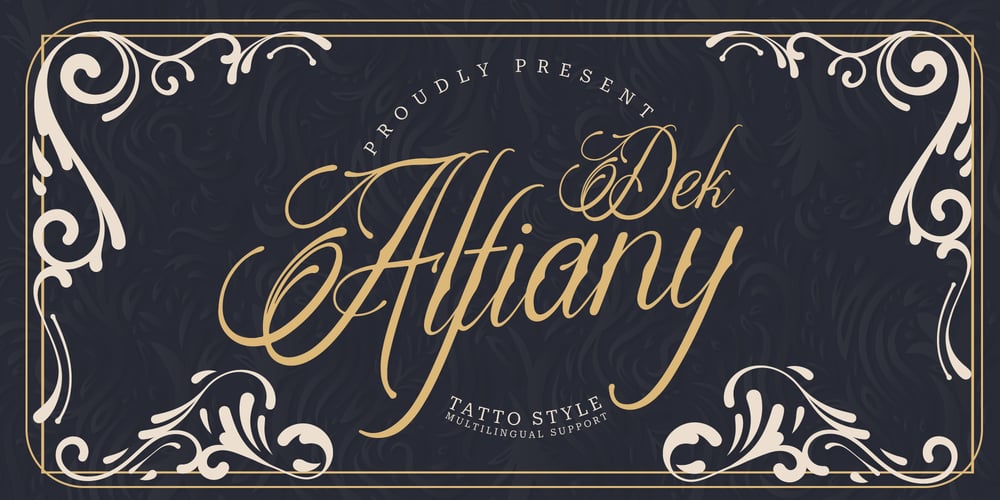
Alfiany Dek Font Family was designed by Dede Nugraha and published by Denustudio. Alfiany Dek contains 2 styles and family package options. Alfiany Dek | Tattoo Style, from Denustudios, suitable for any projects such as: logos, branding projects, homeware designs, product packaging, mugs, quotes, posters, shopping bags, t-shirts, book covers, name card, invitation cards, greeting cards, label, photography, watermark, special events, and all your other lovely projects that need a tattoo style taste. ===============================================================What’s Included : Regular and Italic Web Font Standard glyphs Alternate and Ligature Works on PC & Mac Simple installations Accessible in the Adobe Illustrator, Adobe Photoshop, Adobe InDesign, even work on Microsoft Word and Other Software. PUA Encoded Characters – Fully accessible without additional design software. Fonts include multilingual support